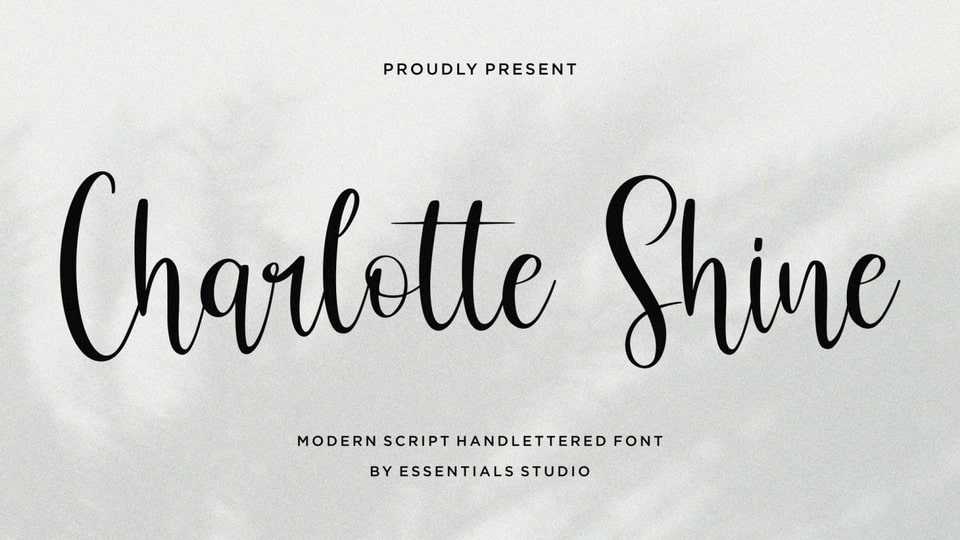
Download Charlotte Shine font, a modern handwritten script. Charlotte Shine font looks natural, stylish, and perfect for any extraordinary project that requires a handwritten feel.
Designer: Essentials Studio